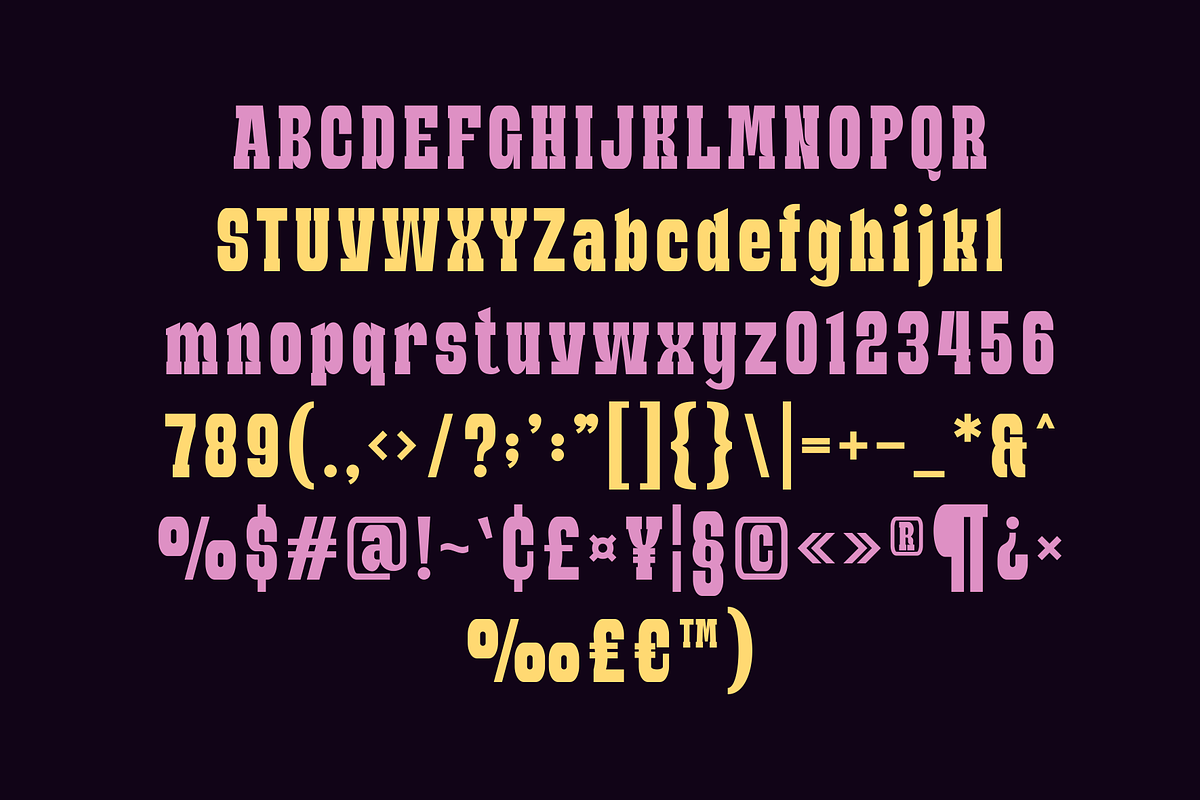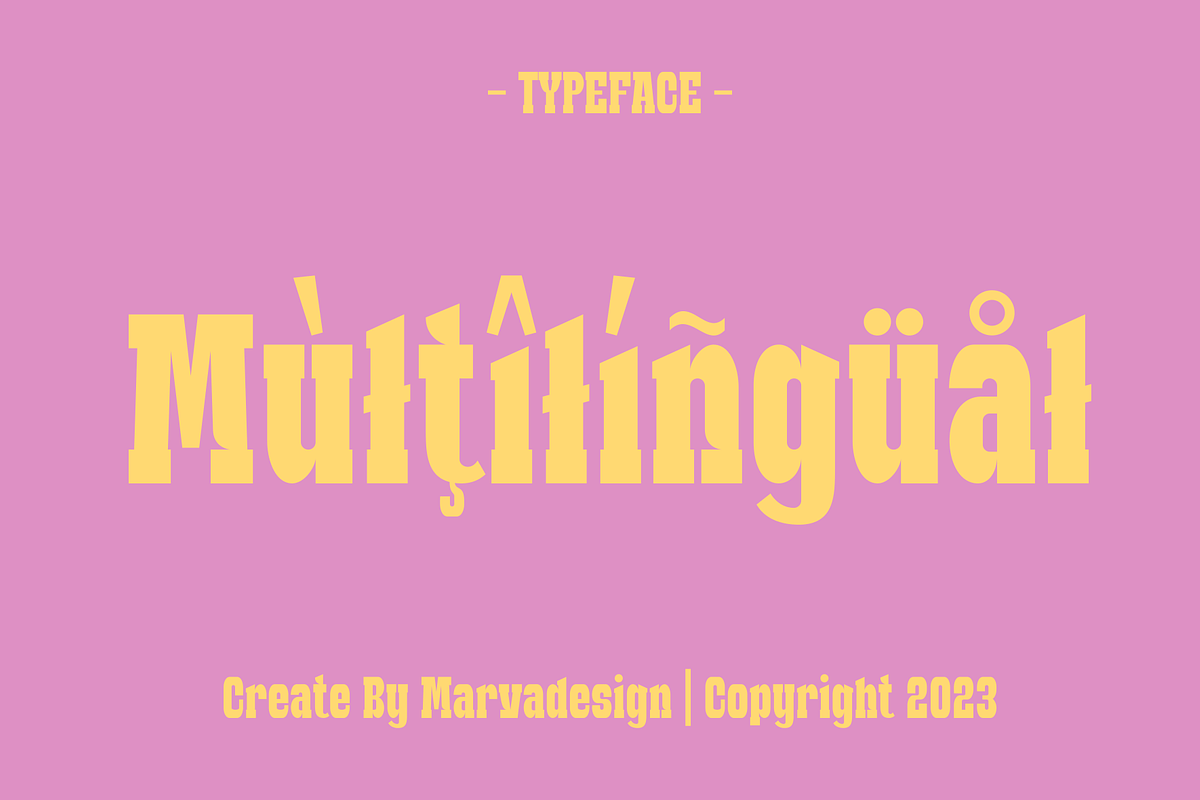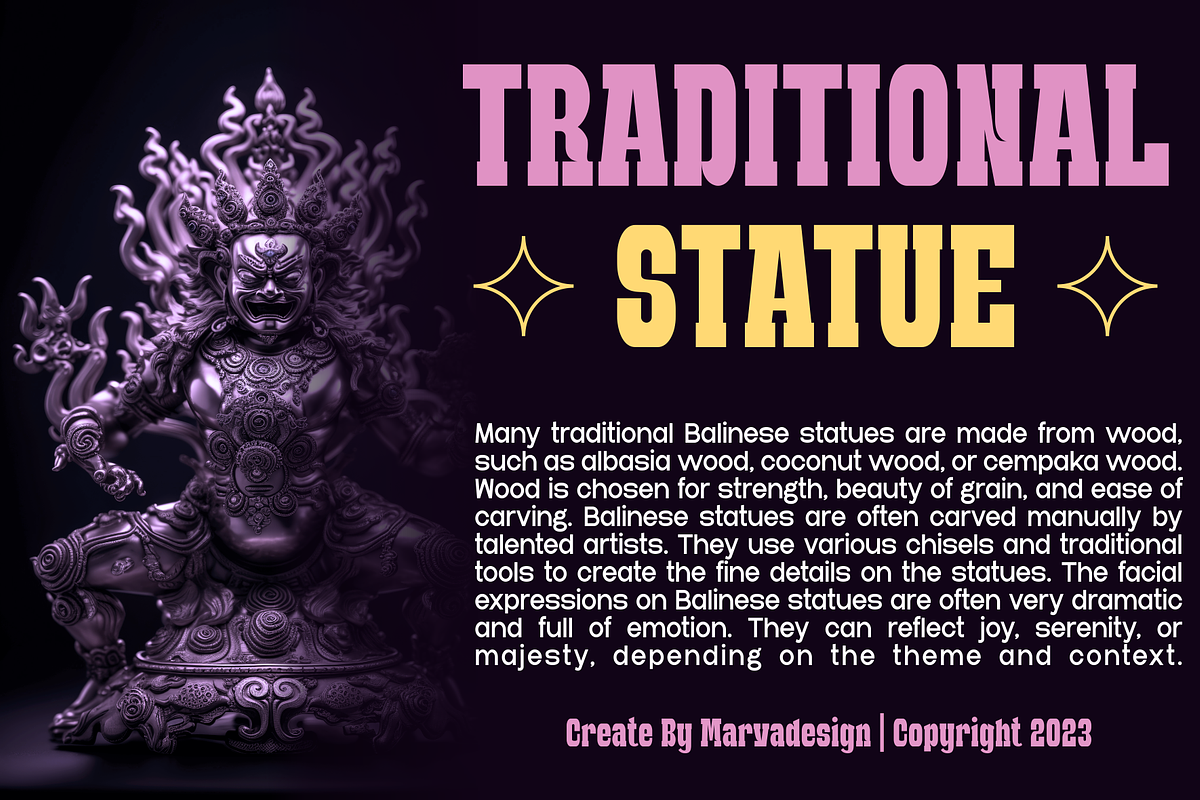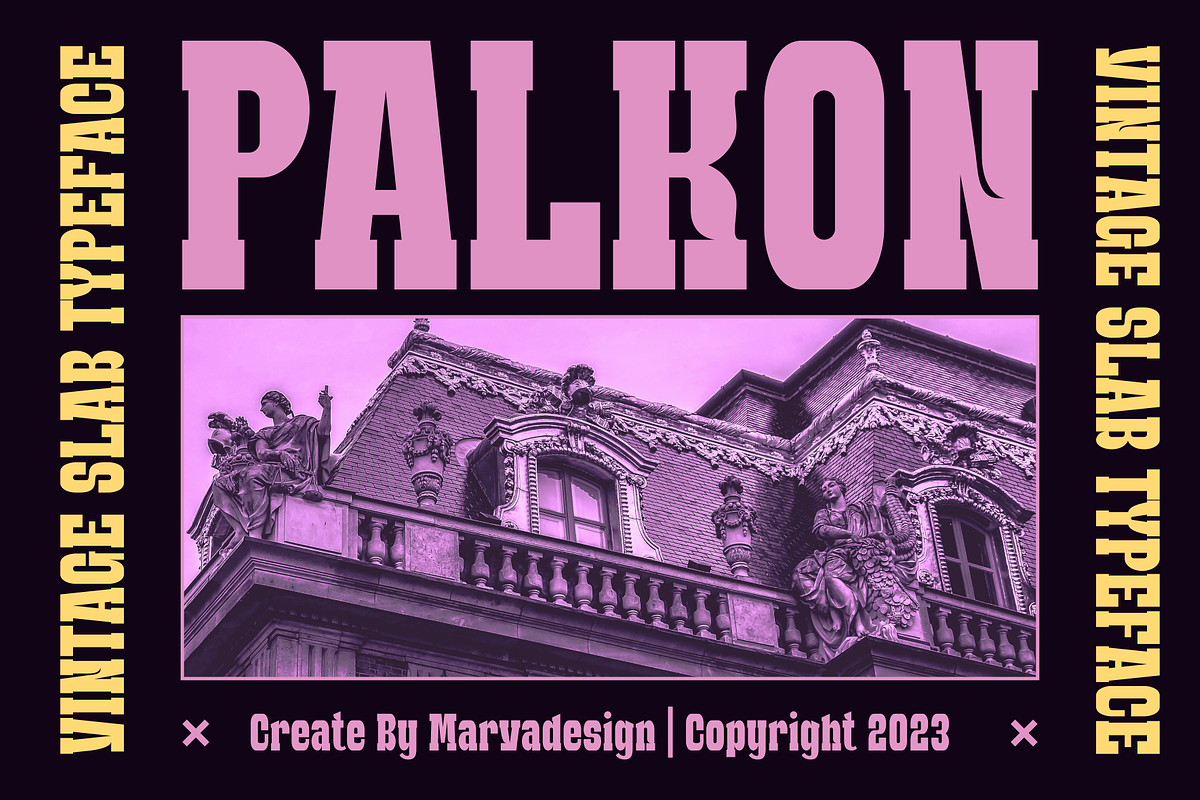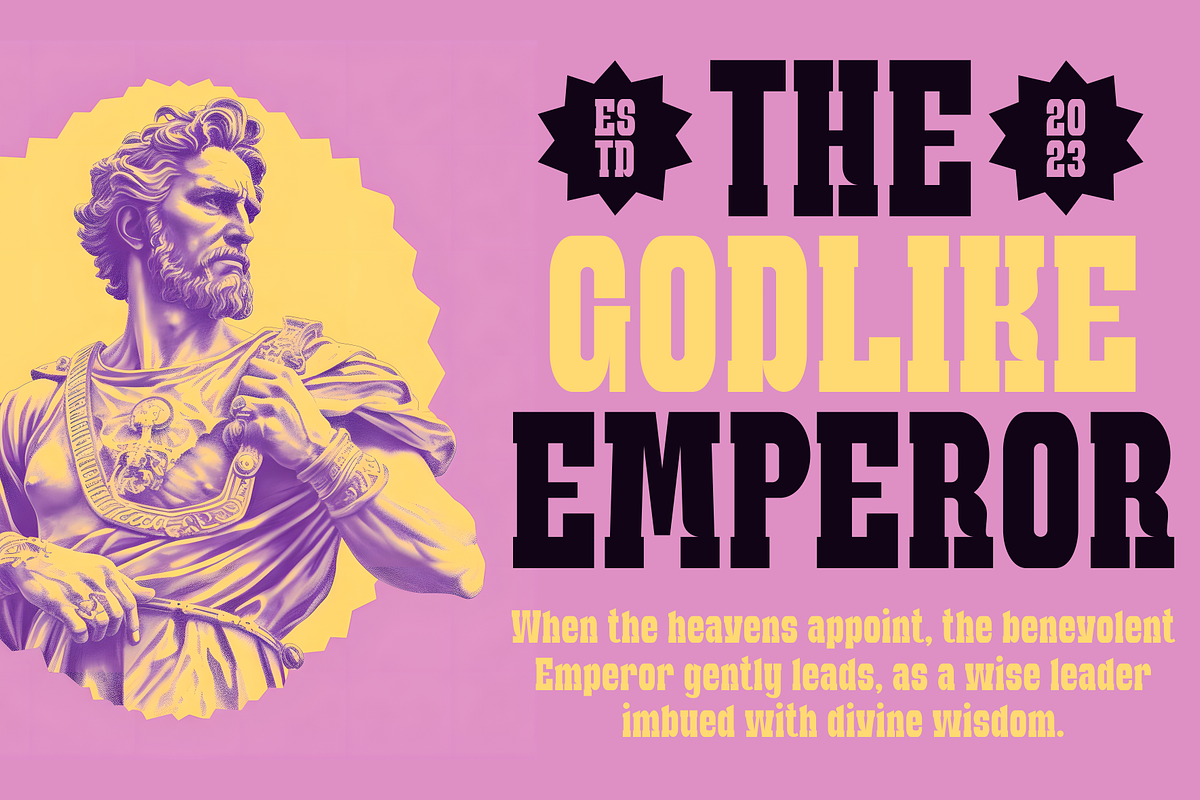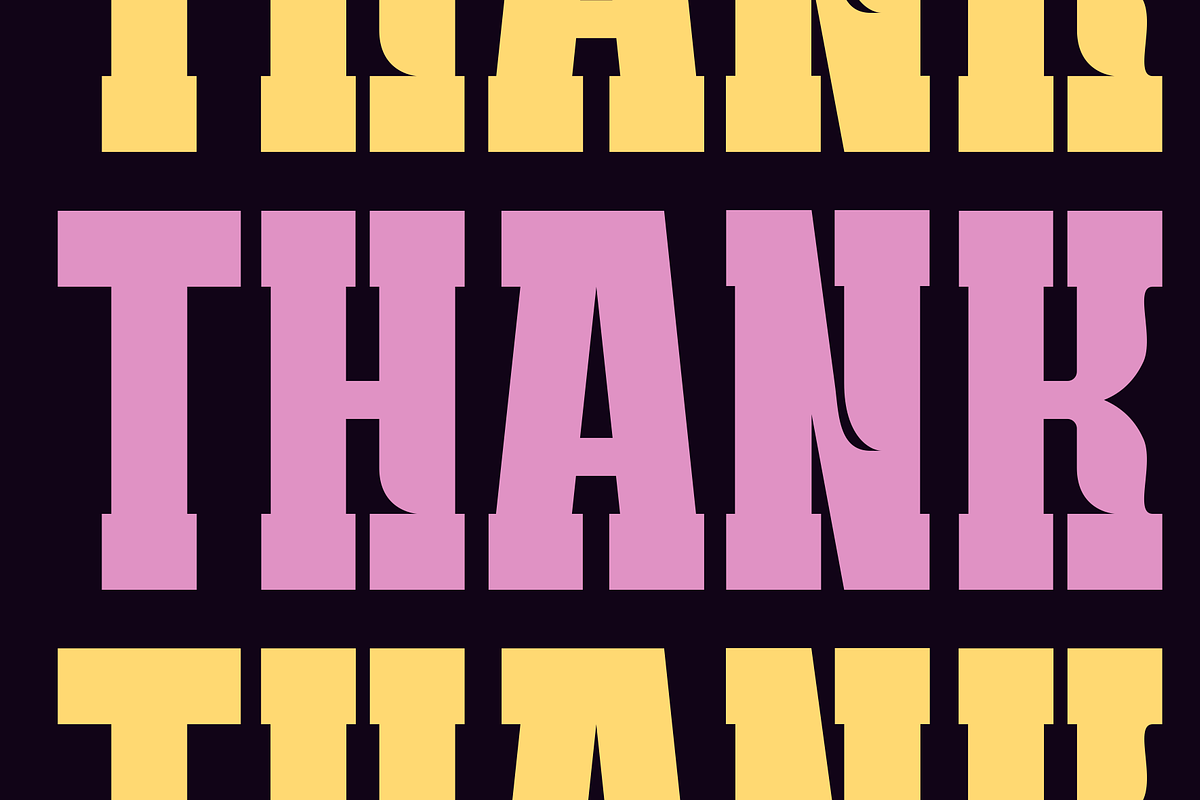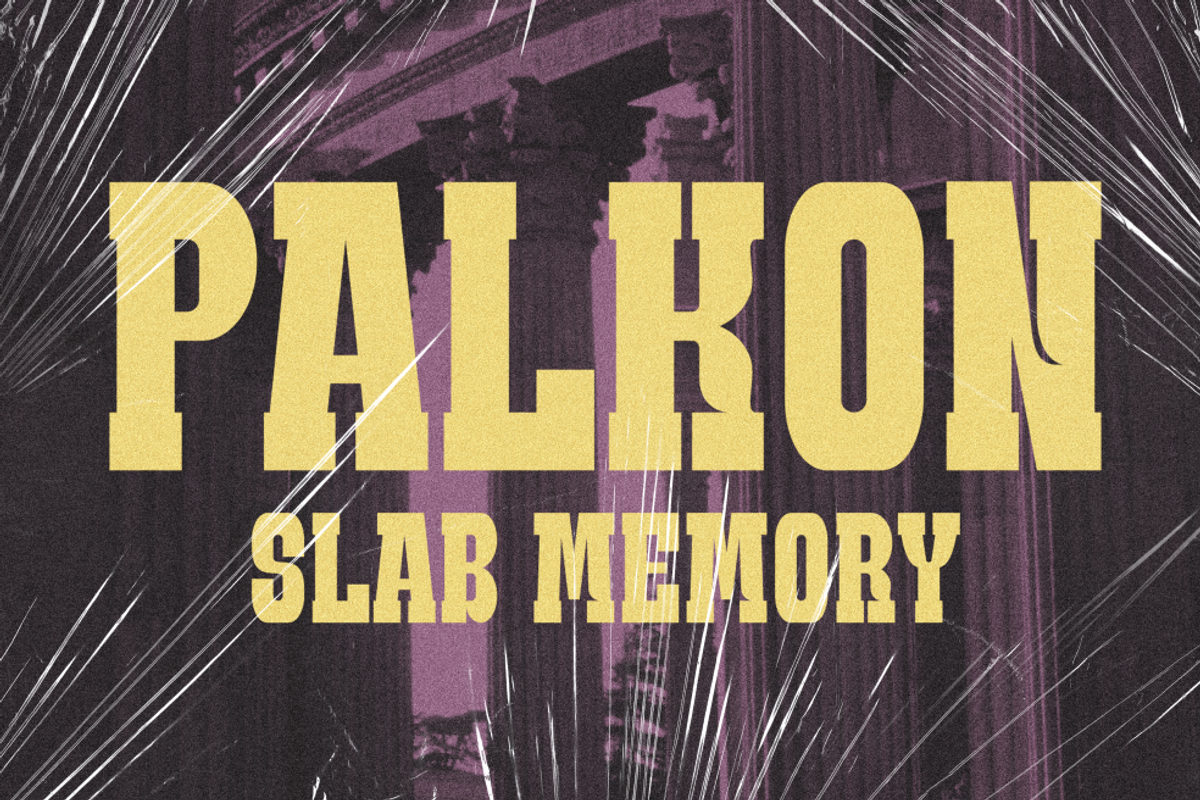
Palkon - Classic Slab Font
Introducing our new product Palkon Font - Classic Slab Font authentic display font. The font is suitable for any branding project like logo, Template Design, Product and many more. outstanding in a wide range of contexts.